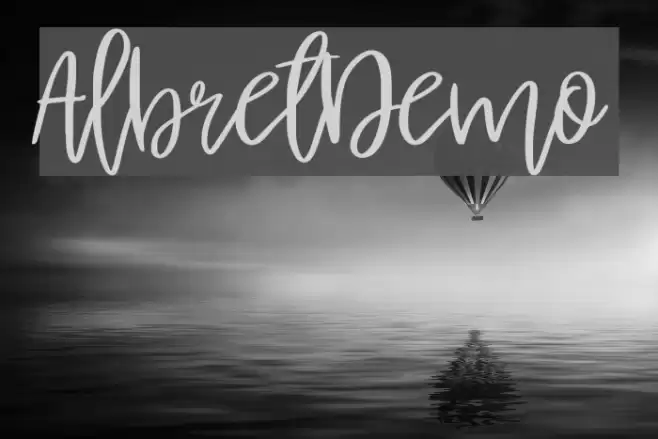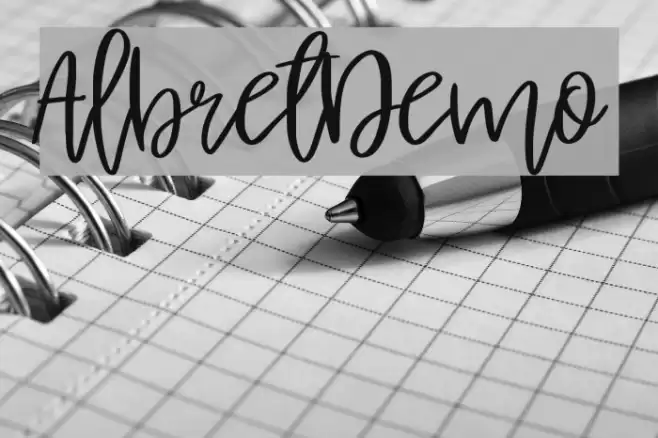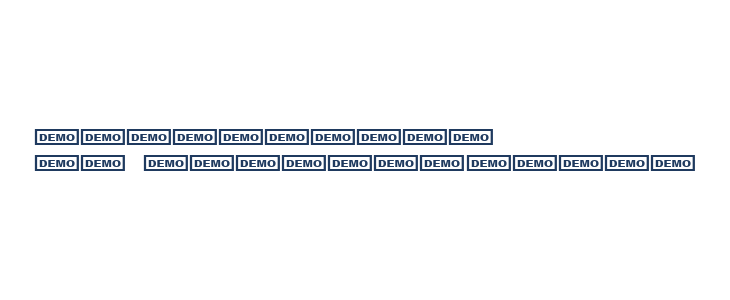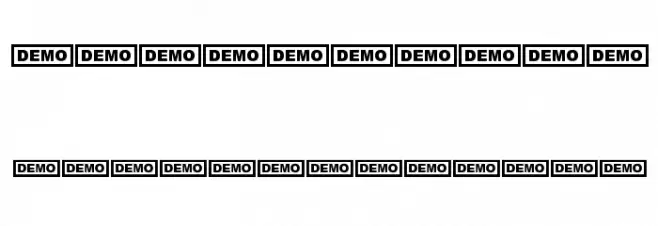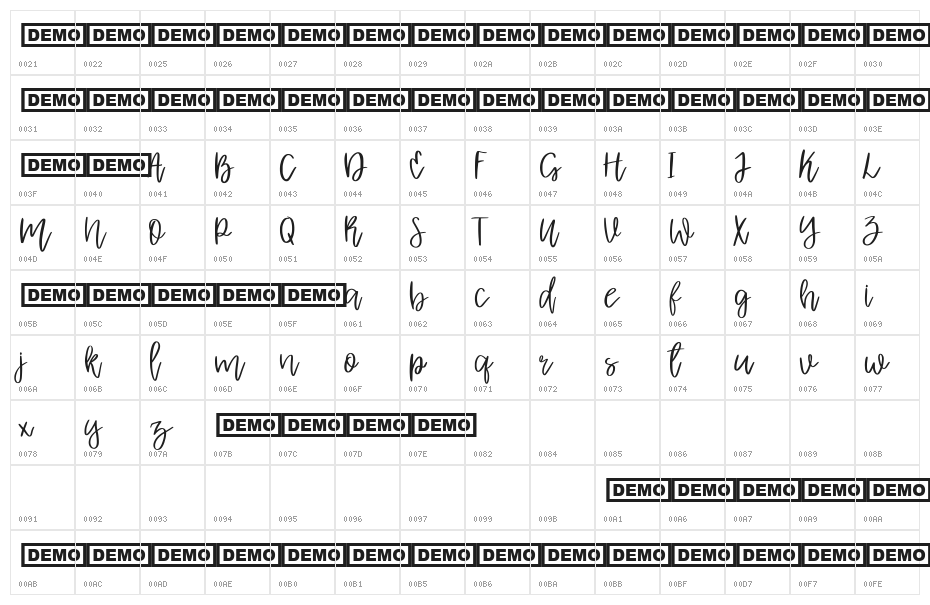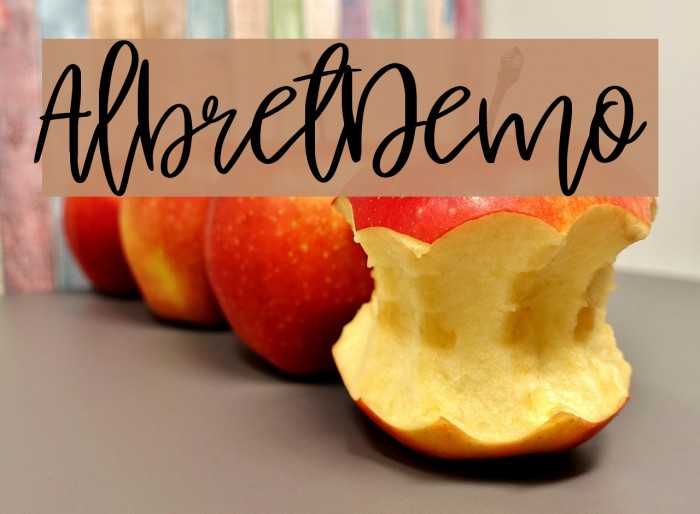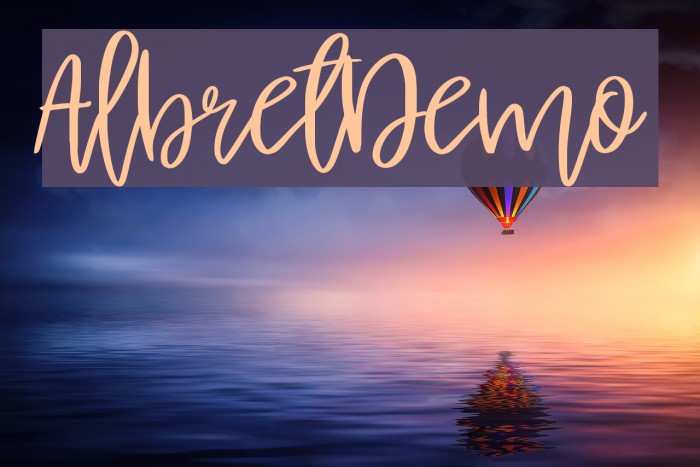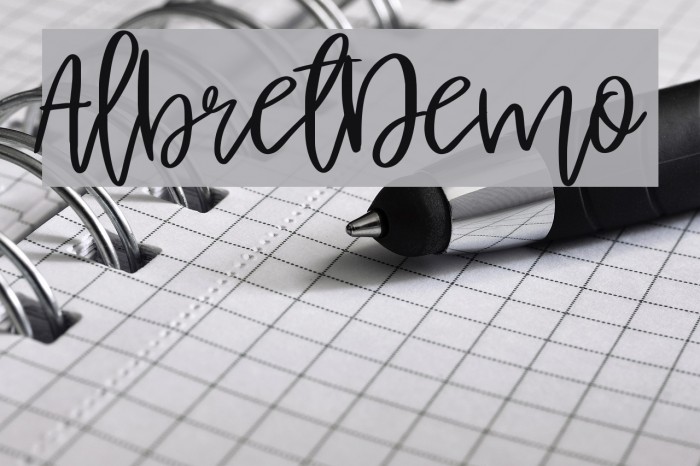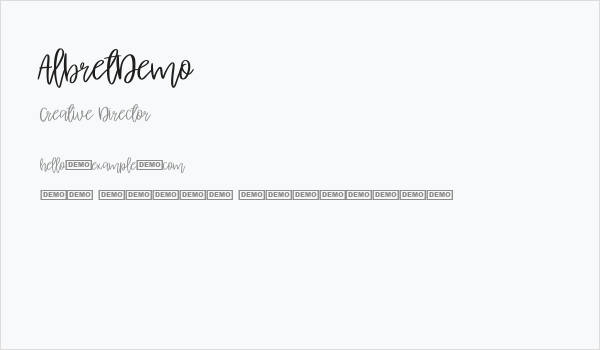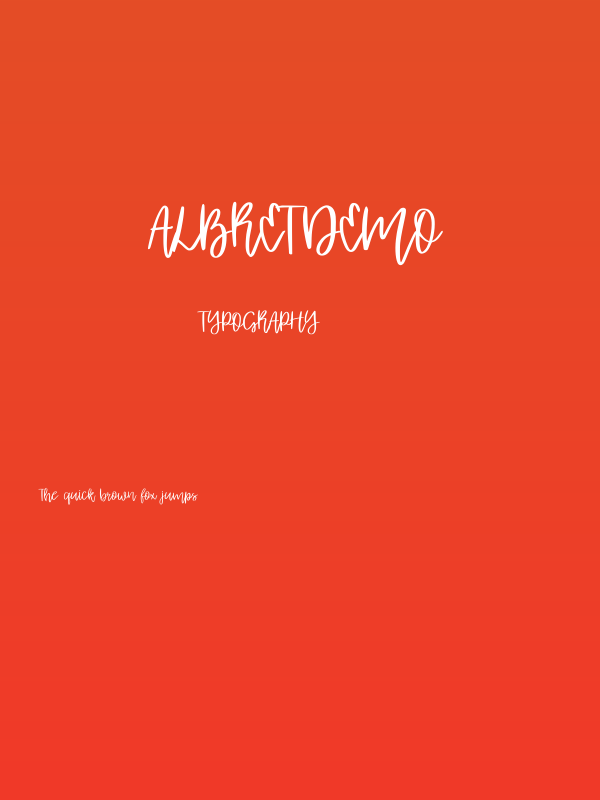
AlbretDemo Font
AlbretDemo Description
This font features a lively and flowing script style, characterized by its smooth, cursive strokes and elegant loops. The uppercase letters are bold and expressive, with a playful yet sophisticated flair. The lowercase letters maintain a consistent flow, enhancing readability while retaining a handwritten charm. The numerals are clear and complement the overall aesthetic, making it suitable for various creative applications. Special characters are seamlessly integrated, adding versatility to the font's use. This font exudes a sense of warmth and personal touch, ideal for projects that require a humanistic and approachable feel.
A lively, flowing script font with elegant loops and a handwritten charm from Uncategorized fonts.
- Proposed Projects: Perfect for wedding invitations, greeting cards, branding, and social media graphics.
- Use Case: Logos, Headlines, Invitations